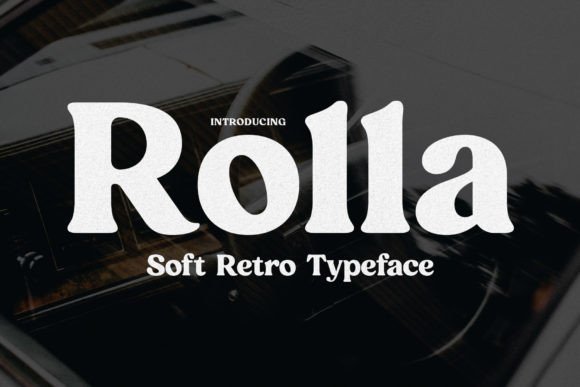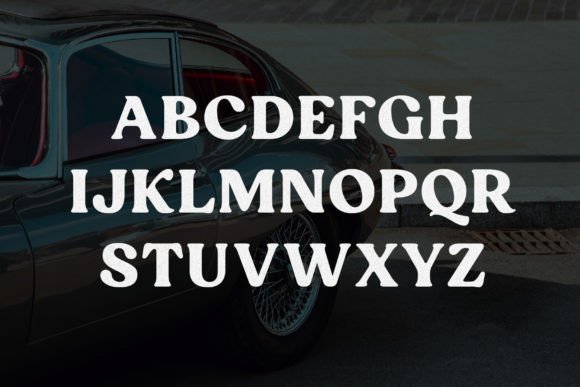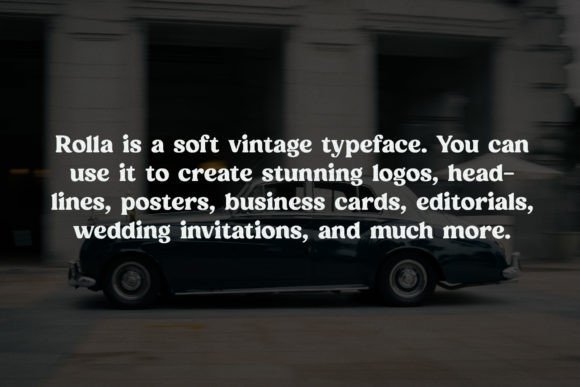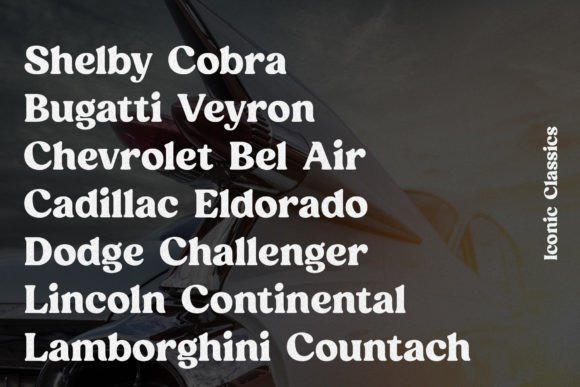
Rolla Font: Bold Retro Serif for Vintage Branding & Eye-Catching Headlines
About the Rolla Font
From logos to headlines, the Rolla Font is the perfect choice for making a lasting impression. Rolla is a bold vintage-style serif font. What makes it special is its charming rounded edges and curves. Rolla brings back that chunky retro typography to the modern era.
You can use it for a variety of design projects like posters, business cards, wedding invitations, social media posts, quote photos, branding, editorials, and much more. If you’re looking for a typeface that evokes a 1960s-1970s feeling, then Rolla is for you.
Rolla’s bold, rounded serifs are ideal for headlines, short impactful statements, and branding applications where a retro yet approachable feel is desired. It works exceptionally well in posters, logos, and packaging designs requiring a vintage aesthetic. However, its weight and character spacing make it less suitable for extended body text or user interfaces requiring high readability.
Consider pairing Rolla with a clean sans-serif like Montserrat for a balanced contrast, or a playful script font such as Pacifico for a more whimsical feel. For a more sophisticated look, a geometric sans-serif such as Futura would provide a modern counterpoint to Rolla’s vintage charm.
Rolla projects a personality that is both confident and friendly, a bold yet approachable vintage style that is perfect for brands aiming for a retro-inspired, yet contemporary image.